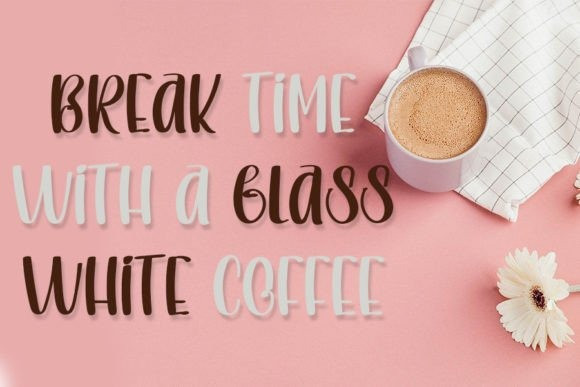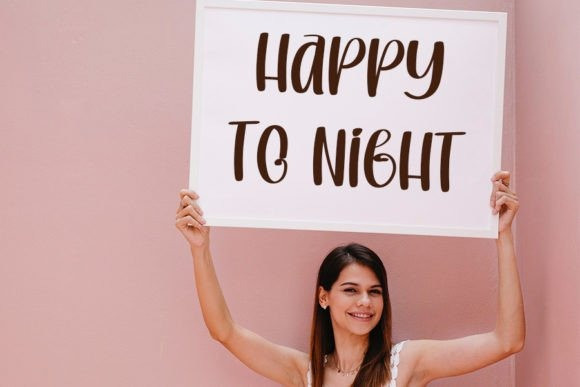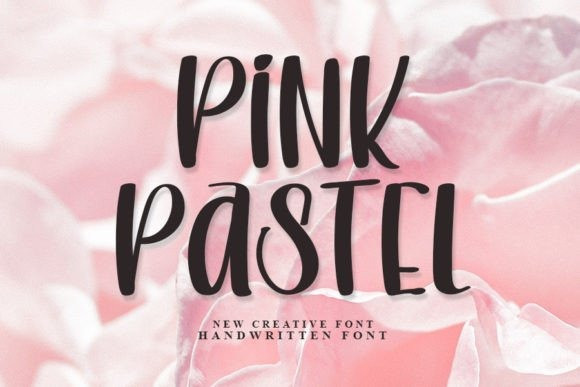
Pink Pastel Font
Pink Pastel Font is a fun and friendly handwritten font. Fall in love with its incredibly versatile style and use it to create gorgeous wedding invitations, beautiful stationary art, eye-catching social media posts, and much more!